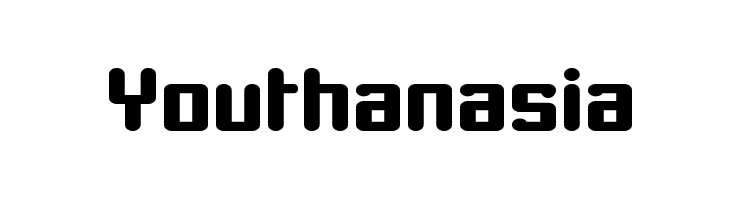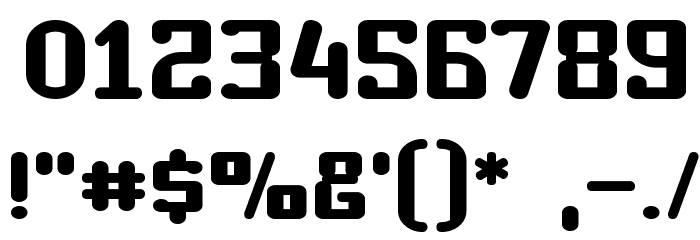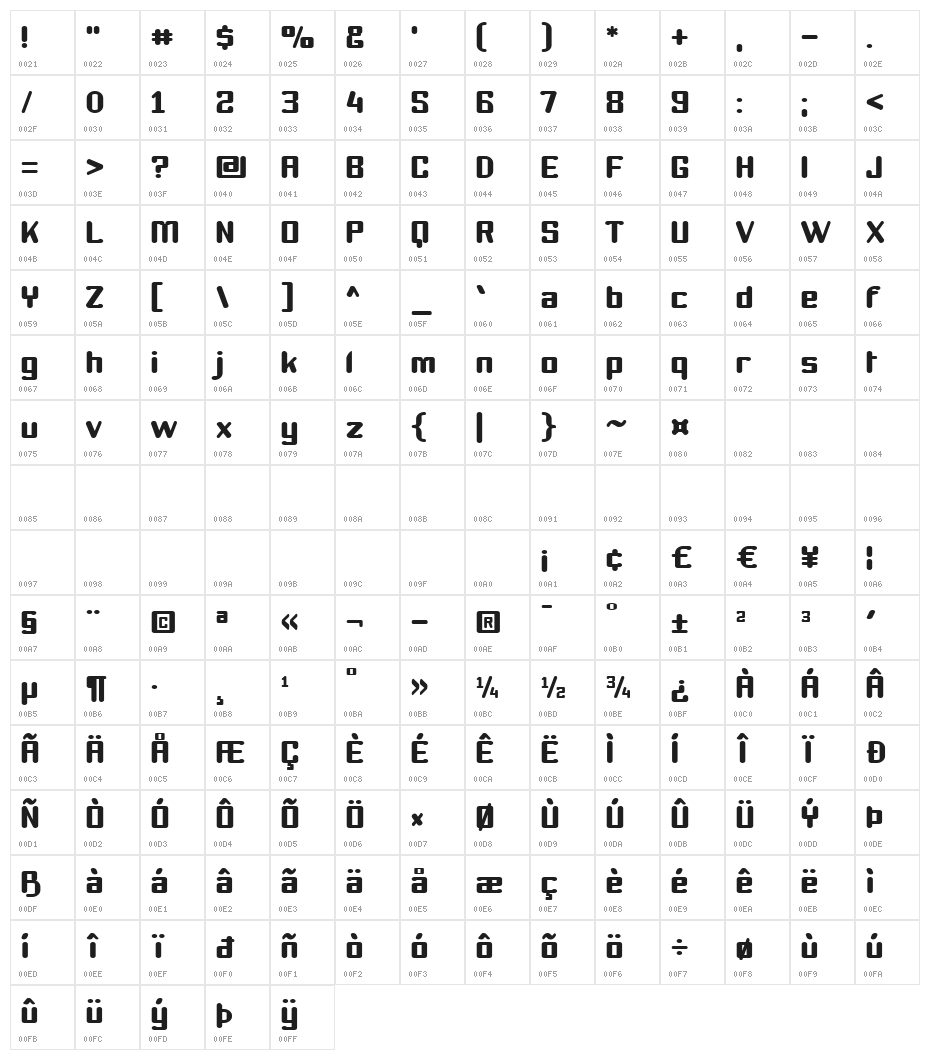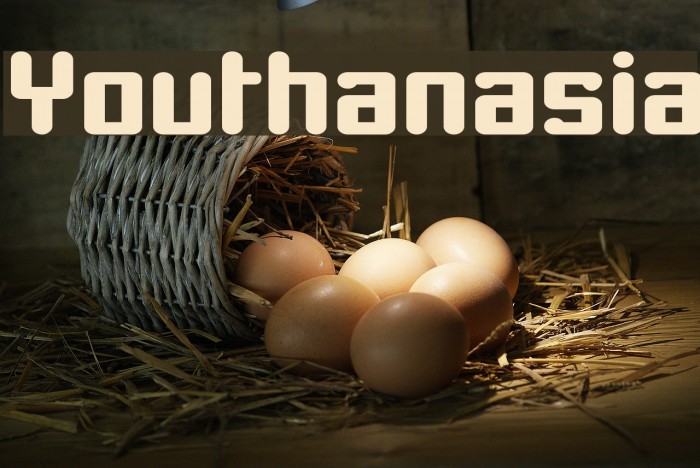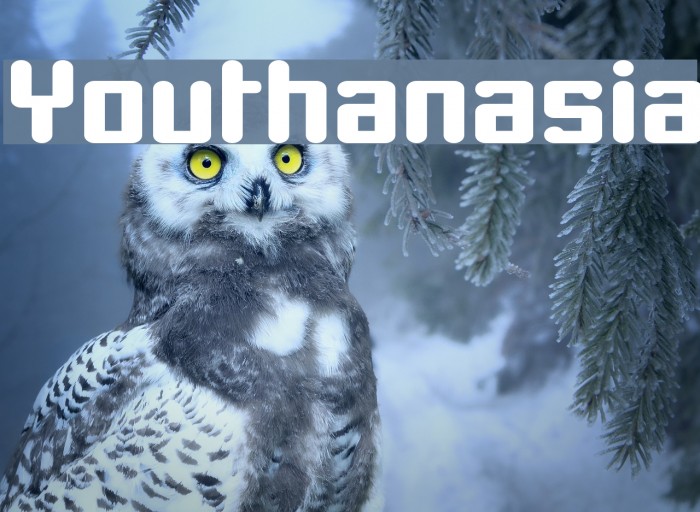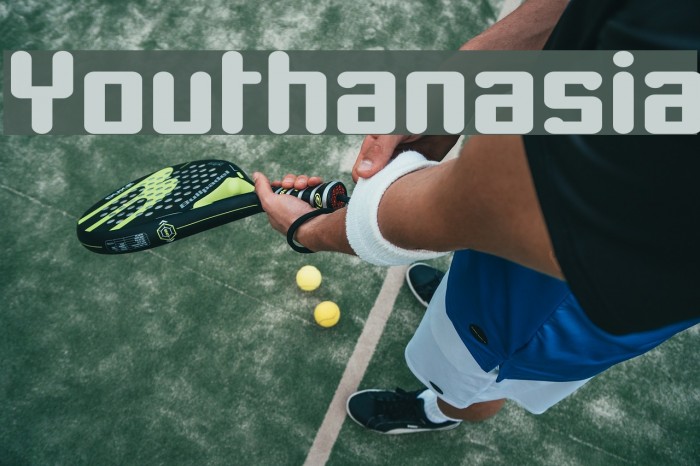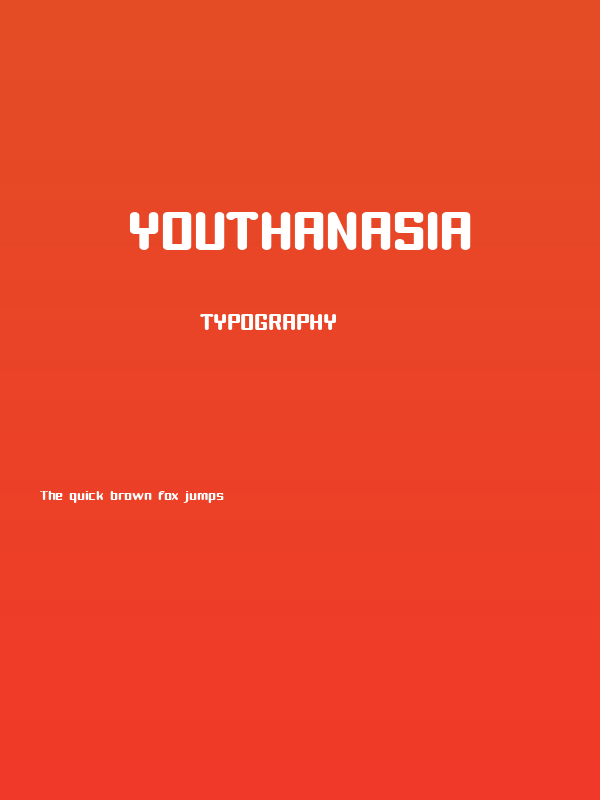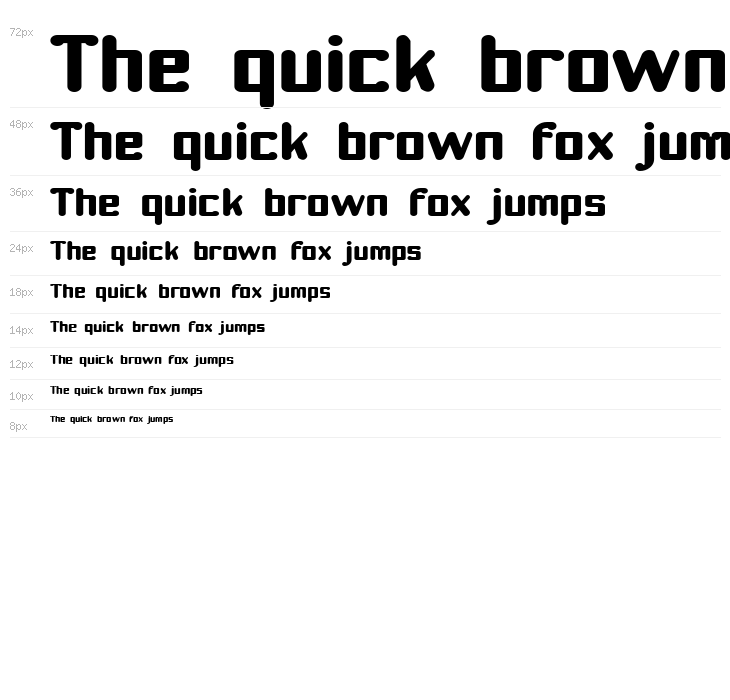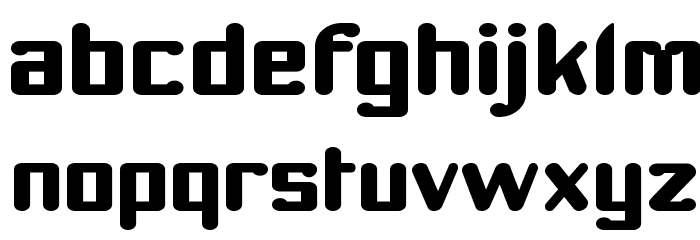
Youthanasia Font
Youthanasia Description
This font features a bold, rounded style with a modern and playful appearance. The characters are uniformly thick, giving it a strong presence. The rounded edges soften the overall look, making it approachable and friendly. The uppercase and lowercase letters maintain a consistent height, contributing to a cohesive and balanced design. Numbers and special characters follow the same rounded and bold aesthetic, ensuring uniformity across all glyphs. The font's design is versatile, suitable for both digital and print media, and can be used to convey a sense of fun and creativity.
| Proposed Projects | Ideal for children's books, playful branding, posters, and digital media. |